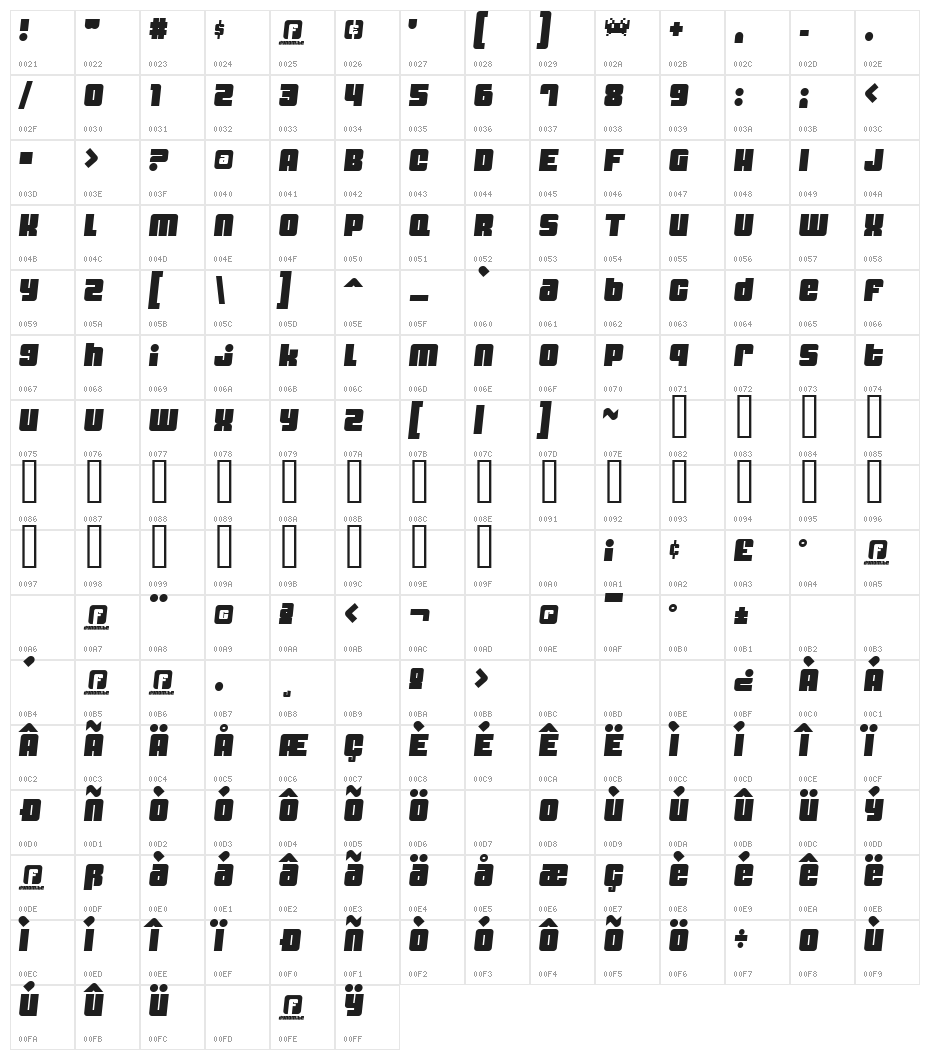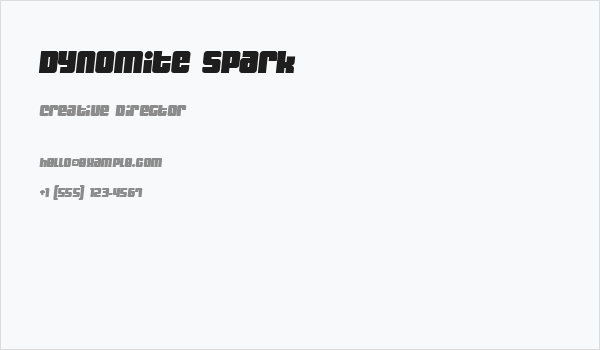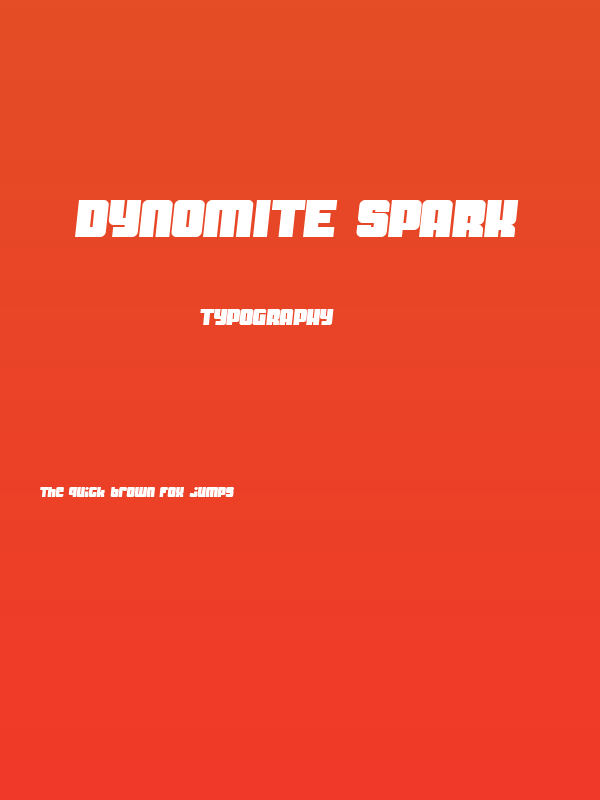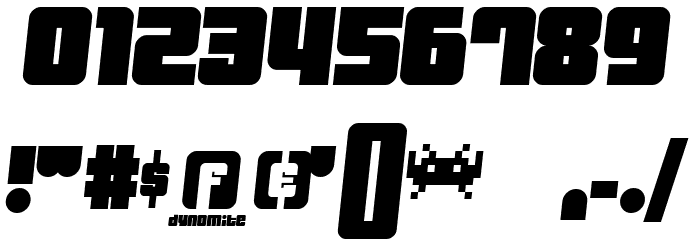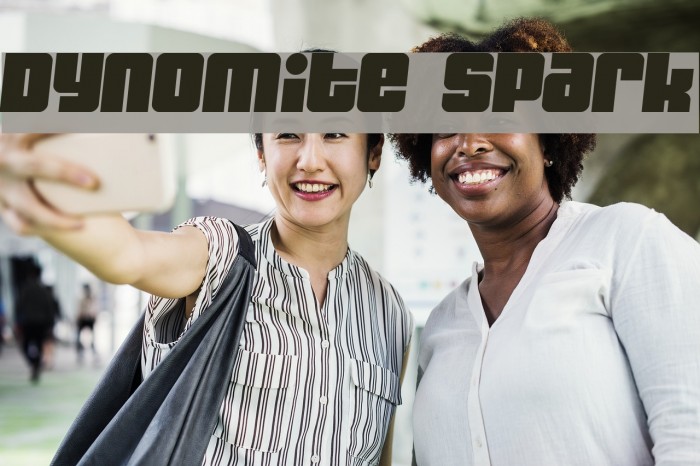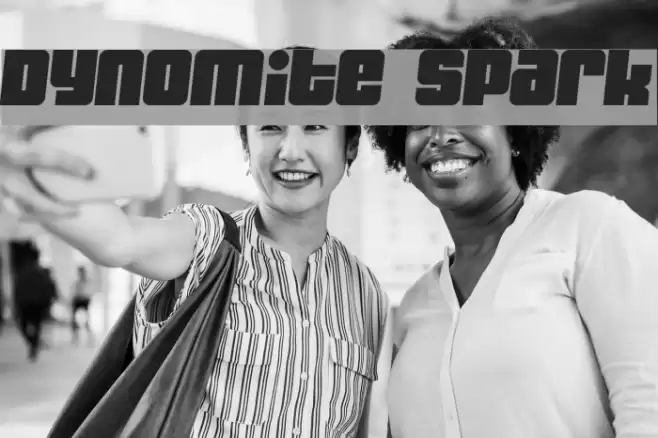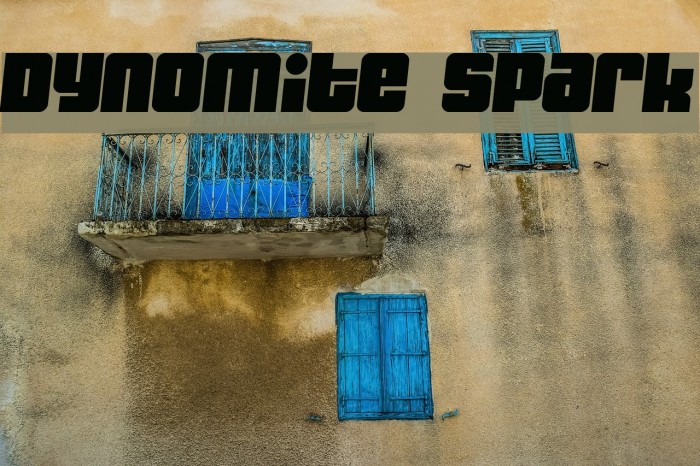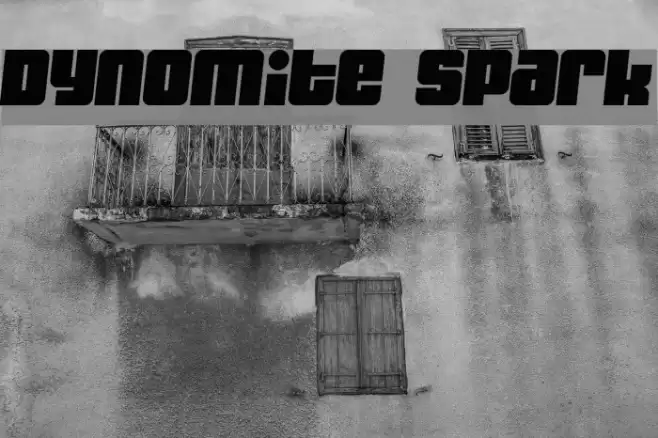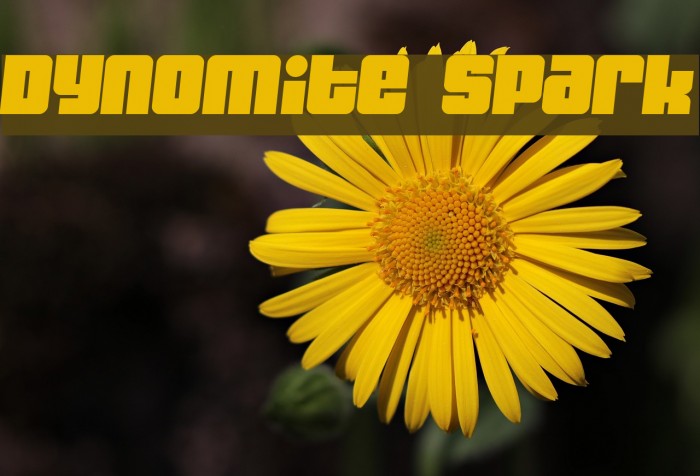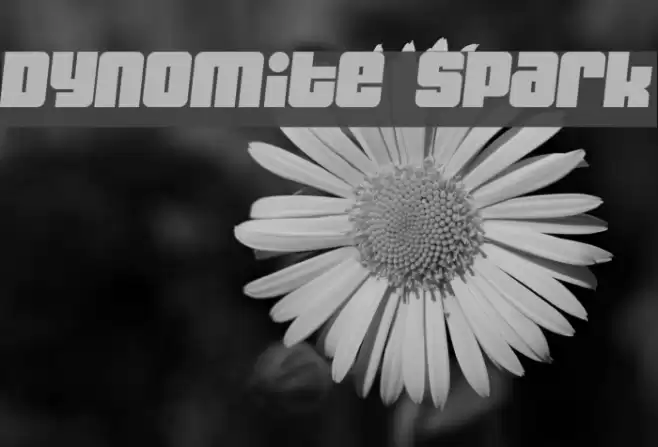
Dynomite Spark Font
| 全体的なスタイル | Retro-Futuristic |
| おすすめプロジェクト | Ideal for posters, logos, video game graphics, and branding materials that require a bold statement. |